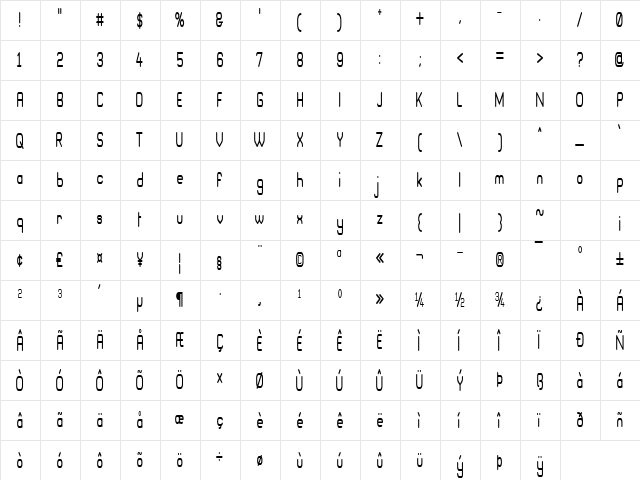
Brave New Era (narrow) G98 Regular
Design Context for Brave New Era (narrow) G98 Typeface
Brave New Era (narrow) G98 takes a measured approach to typography — its balanced proportions and neutral character make it a reliable workhorse for both digital and print work. Its narrow stance lets it pack a punch even in space-constrained designs.